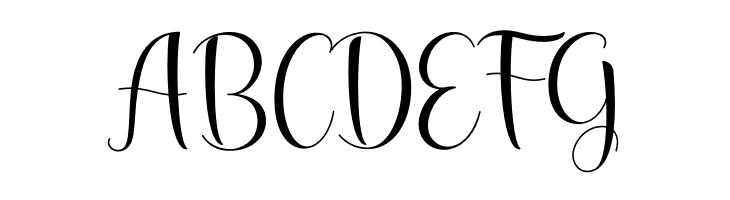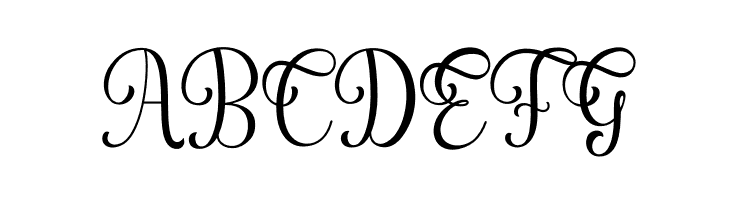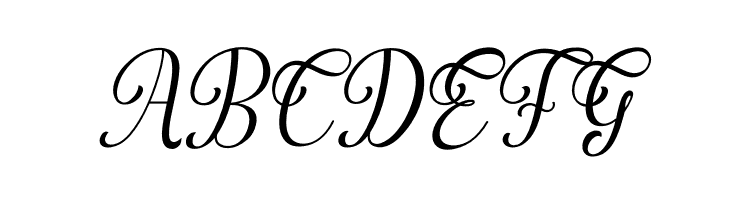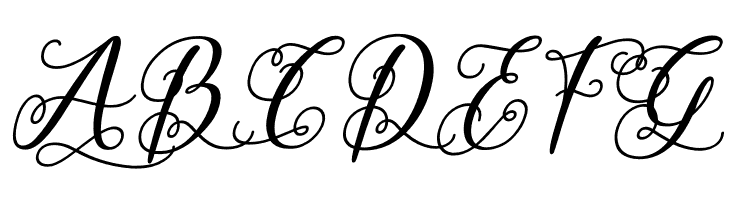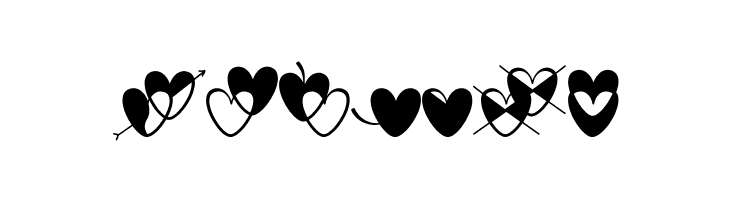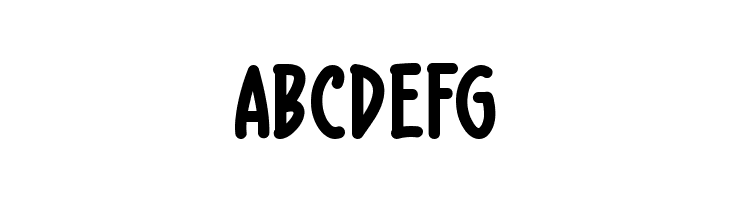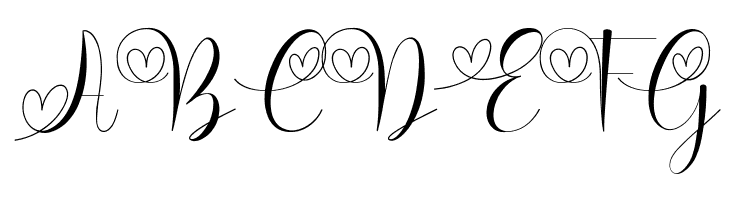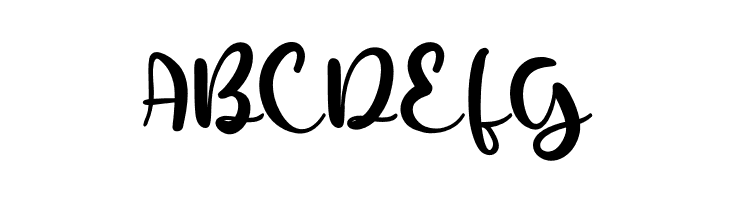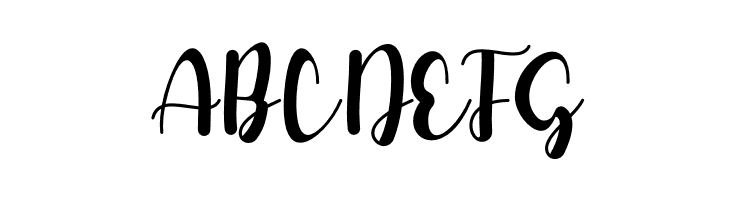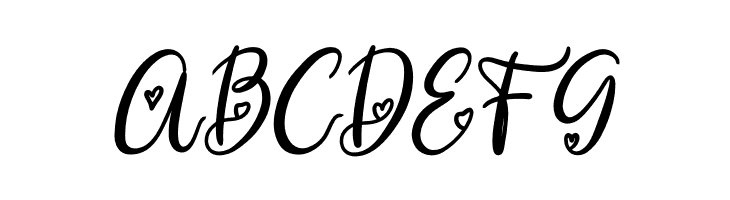
A graceful script font with elegant loops and swirls, perfect for romantic and luxurious designs.
A romantic and elegant script font with flowing, cursive letters.
An elegant and whimsical script font with decorative swirls and loops.
An elegant script font with flowing, interconnected letters and intricate swirls.
An elegant, ornate script font with flowing, interconnected letters and decorative flourishes.
A decorative script font with heart motifs, perfect for romantic designs.
A romantic script font with heart motifs and bold, flowing letterforms.
A whimsical heart and arrow design perfect for romantic themes.
A bold, playful font with heart motifs in each character.
A whimsical script font with heart motifs and elegant calligraphic elements.
A playful, cursive font with a whimsical, handwritten style.
A decorative cursive font with elegant loops and swashes, perfect for romantic designs.
A bold, cursive font with a playful, handwritten style.
A playful script font with heart motifs and cursive elegance.
A decorative font with letters inside heart shapes, featuring floral embellishments.
An elegant script font with flowing, cursive style and intricate swashes.
An elegant and flowing script font, perfect for romantic and formal designs.
An elegant, flowing script font with ornate uppercase letters and smooth, connected lowercase letters.
An elegant script font with flowing, ornate letterforms and intricate swashes.
A bold, italic, decorative font with heart motifs and a playful style.
A romantic and sophisticated script font with elegant, flowing characters.
An elegant script font with intricate swirls and flourishes.
A graceful script font with elegant loops and high contrast strokes.
A bold, flowing script font with a playful and romantic vibe.
An elegant, flowing script font with artistic flair and romantic accents.
An elegant script font with decorative swirls and medium contrast, perfect for romantic designs.
A romantic and whimsical script font with elegant swashes and playful curls.
A decorative script font with floral embellishments and elegant, flowing letters.
A whimsical, heart-themed font with cursive lowercase letters.
A whimsical and elegant script font with flowing, interconnected letters.
A whimsical, cursive font with elegant loops and a romantic feel.
A romantic, cursive font with elegant loops and a vintage charm.
A graceful and flowing script font with elegant cursive characters.
An elegant and fluid script font with a handwritten feel.
A decorative font with hollow, heart-shaped elements, perfect for romantic or playful designs.